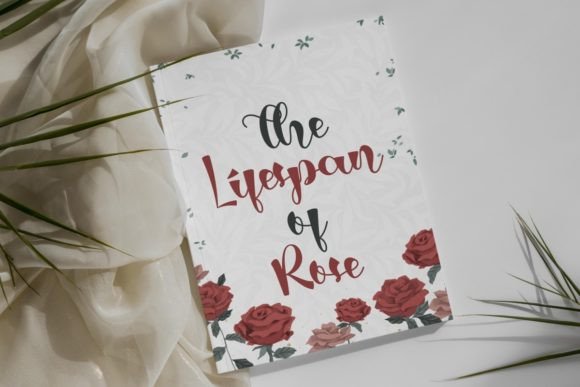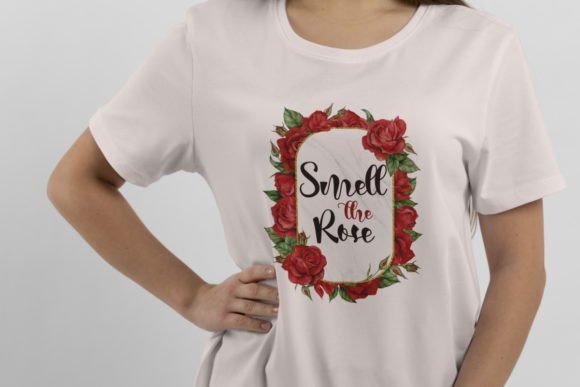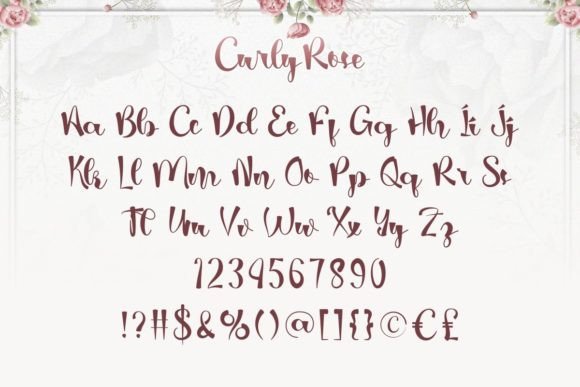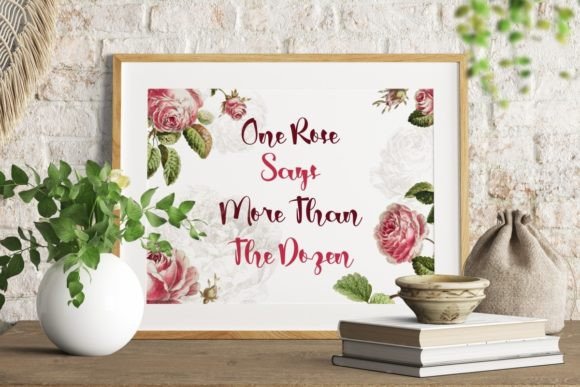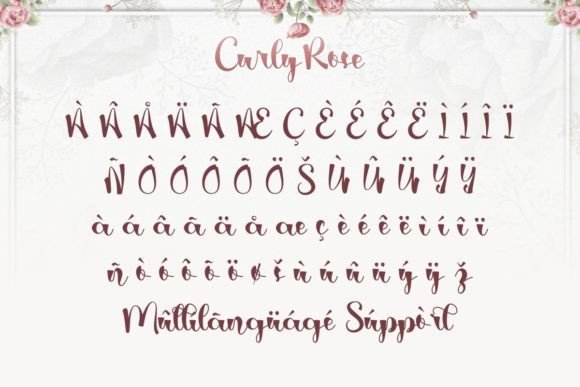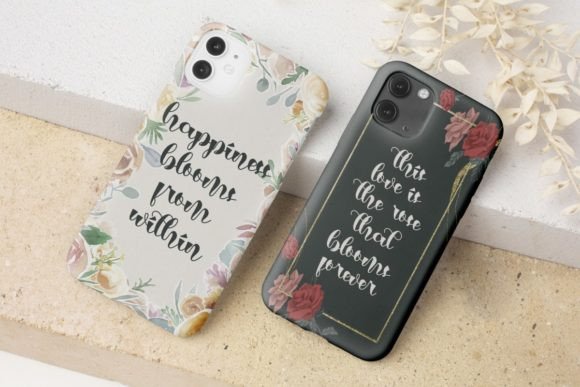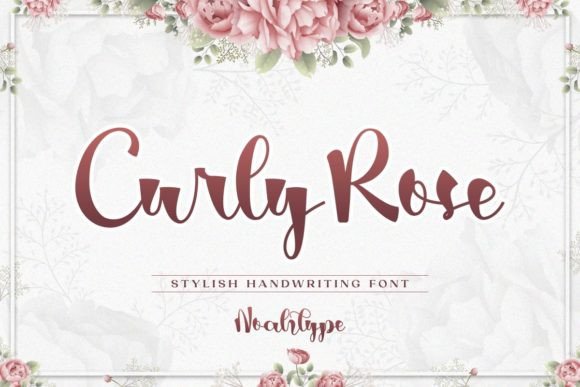
Introducing Curly Rose Font: Elevate Your Designs with Elegant Handwriting
Are you a designer, crafty enthusiast, or entrepreneur looking for a unique and stylish font to elevate your creative projects? Look no further than Curly Rose Font, a beautiful handwriting calligraphy font that is sure to bring a touch of elegance and sophistication to your designs. In this article, we’ll dive into the features and benefits of Curly Rose Font, and explore how it can be used to take your designs to the next level.
What is Curly Rose Font?
Curly Rose Font is a stunning handwriting calligraphy font that boasts curly, unique letter shapes that are sure to capture attention. This font features a distinctive bold line that adds a touch of drama and flair to any design. Whether you’re creating a logo, brochure, or social media graphic, Curly Rose Font is the perfect choice for anyone looking to add a touch of personality and style to their work.
Key Features of Curly Rose Font
So, what makes Curly Rose Font so special? Here are just a few of its key features:
- Unique and Curly Letter Shapes: Curly Rose Font features curly, handwriting-style letter shapes that are sure to add a touch of whimsy and personality to your designs.
- Bold Line: The font’s bold line adds a touch of drama and flair to any design, making it perfect for headlines, titles, and other attention-grabbing elements.
- Versatile: Curly Rose Font is suitable for a wide range of design applications, including author and writing, publishing, printing, custom design, fashion, accessories, cosmetics, wedding or event organizing, and more.
How to Use Curly Rose Font
Curly Rose Font is incredibly versatile and can be used in a variety of design applications. Here are just a few ideas to get you started:
- Logos and Branding: Use Curly Rose Font to create a unique and memorable logo that reflects your brand’s personality and style.
- Social Media Graphics: Add a touch of elegance and sophistication to your social media graphics with Curly Rose Font.
- Wedding and Event Design: Curly Rose Font is perfect for creating beautiful wedding invitations, programs, and other event materials.
- Fashion and Beauty: Use Curly Rose Font to create stunning fashion and beauty designs, including brochures, flyers, and advertisements.
Benefits of Using Curly Rose Font
So, why should you choose Curly Rose Font for your design projects? Here are just a few benefits of using this amazing font:
- Elegant and Sophisticated: Curly Rose Font adds a touch of elegance and sophistication to any design, making it perfect for high-end brands and luxury products.
- Unique and Memorable: The font’s curly, handwriting-style letter shapes make it unique and memorable, ensuring that your designs will stand out from the crowd.
- Versatile: Curly Rose Font can be used in a wide range of design applications, making it a great addition to any designer’s toolkit.
In conclusion, Curly Rose Font is a stunning handwriting calligraphy font that is sure to elevate your designs to the next level. With its unique and curly letter shapes, bold line, and PUA encoding, this font is perfect for designers, crafty enthusiasts, and entrepreneurs looking to add a touch of elegance and sophistication to their work. Whether you’re creating a logo, social media graphic, or wedding invitation, Curly Rose Font is the perfect choice for anyone looking to make a lasting impression.